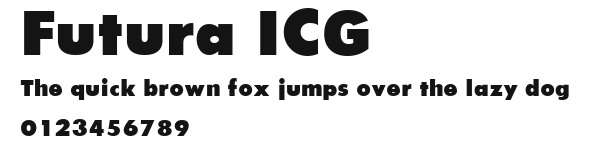
• Font Name: Futura ICG
• Font Style: XBold
• Full Font Name: Futura ICG XBold
Futura ICG.ttf is a modern, elegant sans-serif font designed for ultimate readability and visual harmony. Perfect for branding, headlines, web design, and print materials.